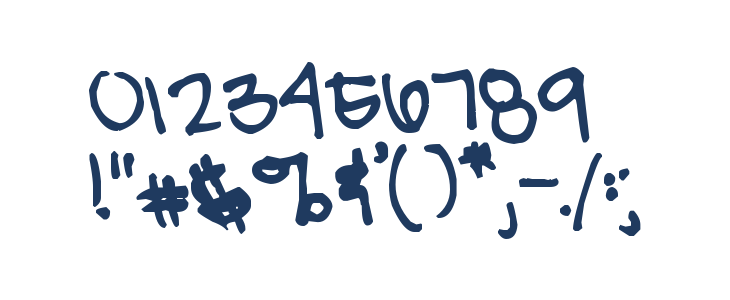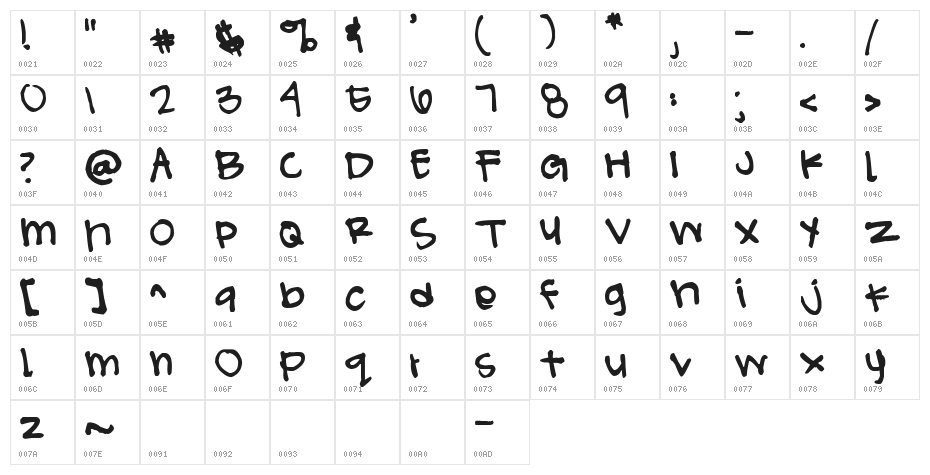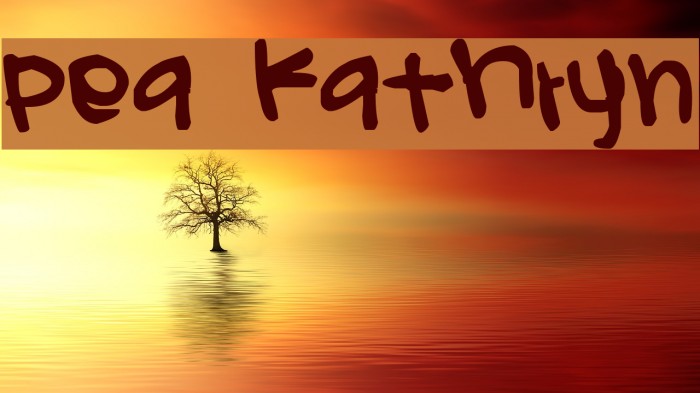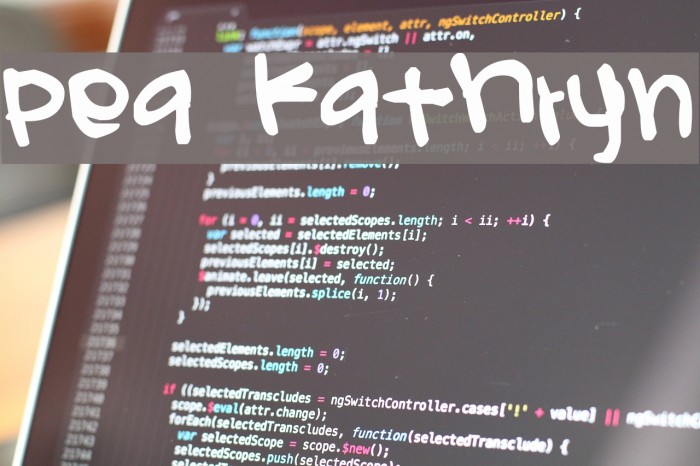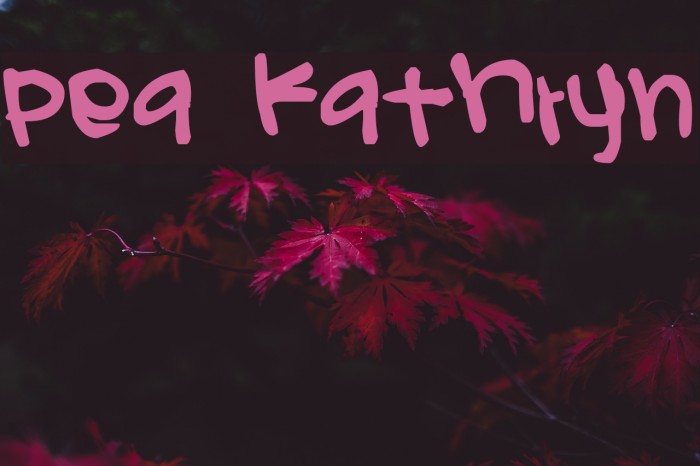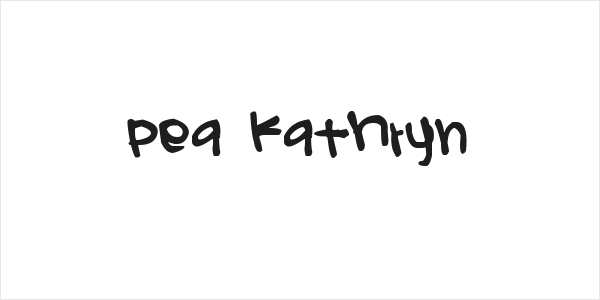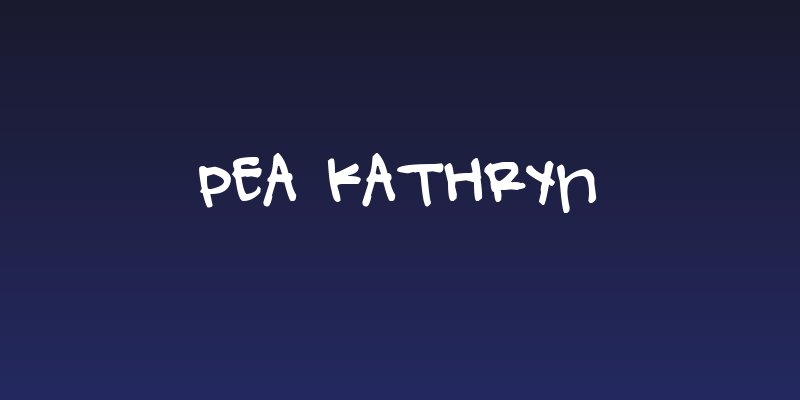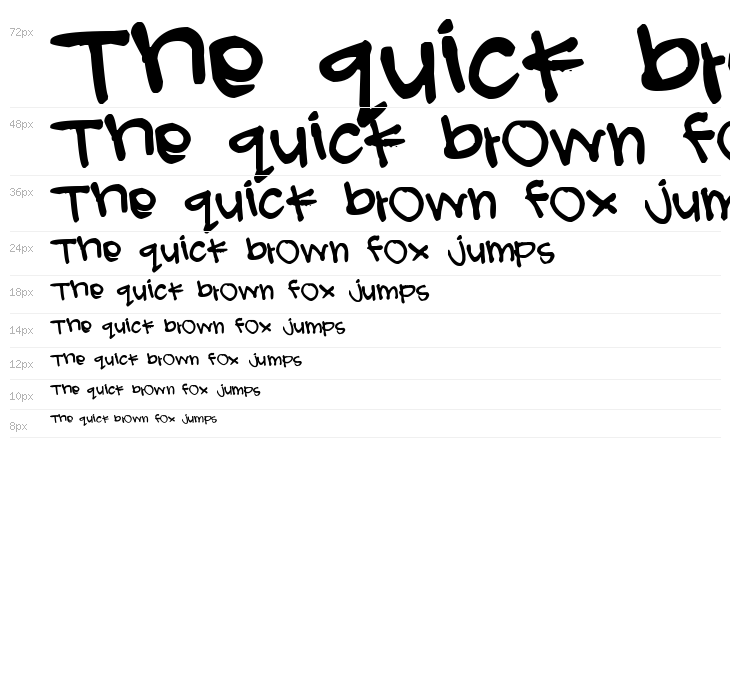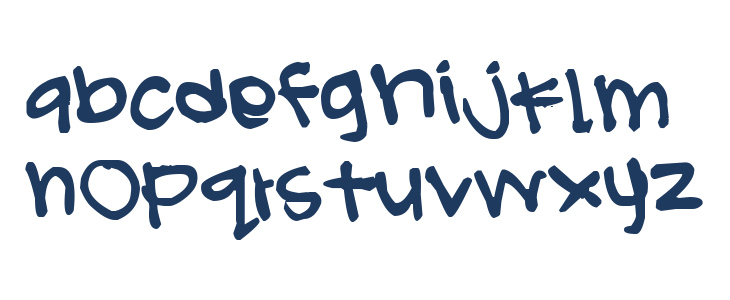
Pea Kathryn Font
Pea Kathryn Description
This font exudes a playful and casual handwritten style, characterized by its bold and slightly irregular strokes. The letters have a whimsical, informal appearance, making them ideal for projects that require a personal touch. The uppercase and lowercase letters maintain a consistent style, with rounded edges and a slightly uneven baseline, adding to the font's charm. The numerals and special characters follow the same playful aesthetic, ensuring a cohesive look across all text elements. This font is perfect for creative projects that aim to convey a sense of fun and approachability.